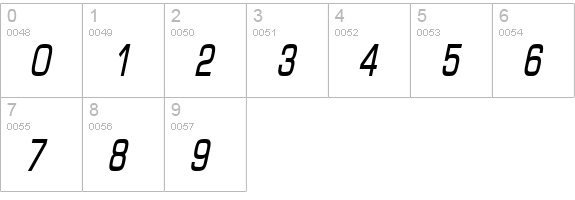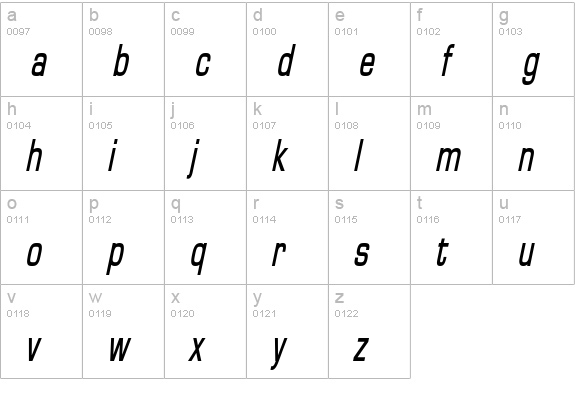
Eurasia Thin BoldItalic is a delicate, low-contrast variant in the Eurasia typeface family \xE2\x80\x94 well suited to fashion editorial, minimal branding, and high-contrast display.
Eurasia Thin BoldItalic font is a modern and sophisticated typeface that exudes elegance and professionalism. Its sleek and slender design with bold italic styling makes it perfect for adding a touch of luxury to your designs. The unique combination of thin strokes and bold accents creates a striking visual impact that will make your text stand out. This versatile font is ideal for a wide range of design projects, from branding and advertising to editorial and packaging. Whether you're creating a logo, heading, or body text, Eurasia Thin BoldItalic font will bring a touch of sophistication to your work. Best of all, Eurasia Thin BoldItalic font is available for free download at FontsMarket.com. Now you can enhance your designs with this stunning typeface without breaking the bank. Don't miss out on the opportunity to add Eurasia Thin BoldItalic font to your font collection today!